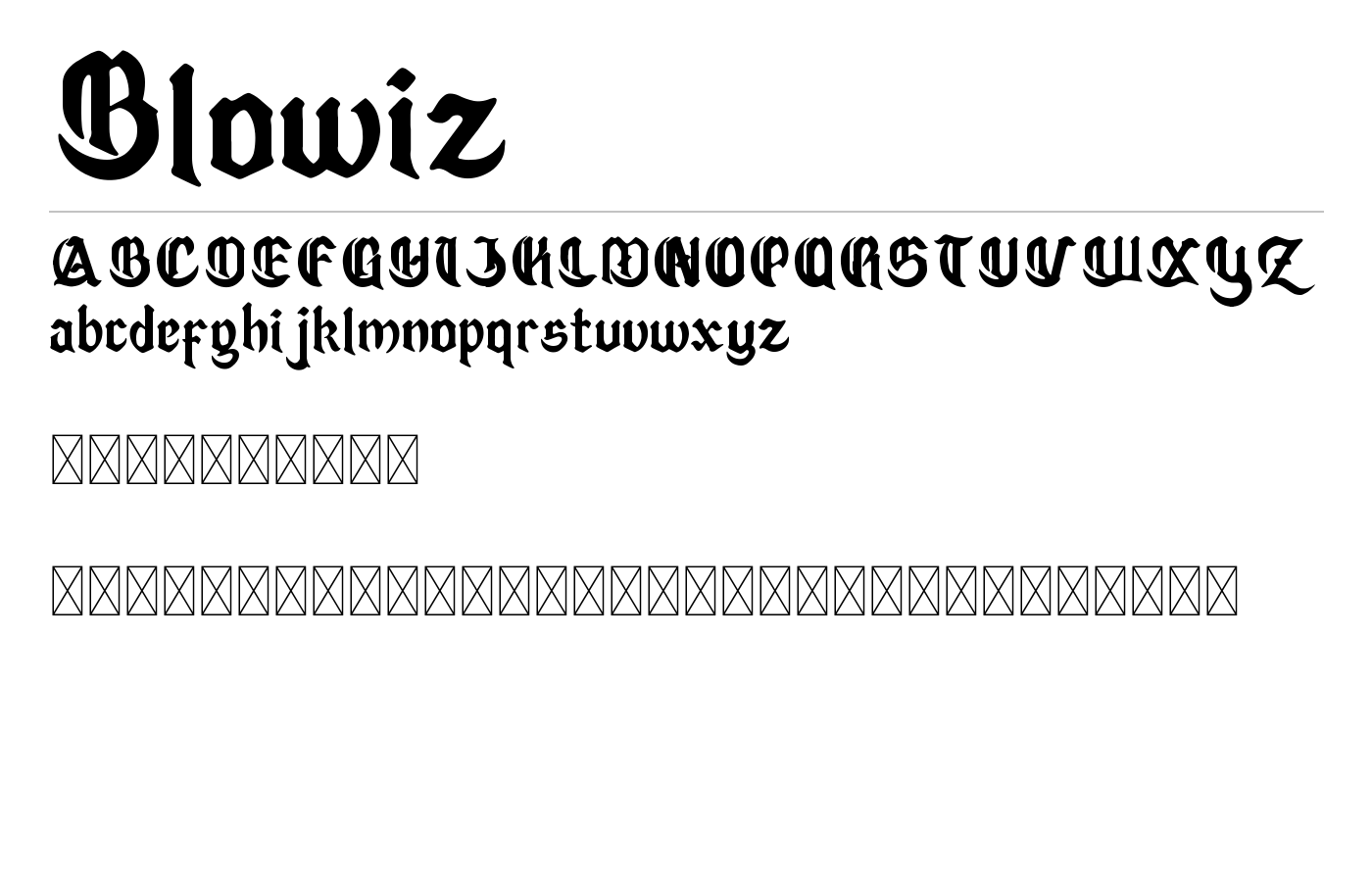
Blowiz is a bold blackletter serif font that features strong, sharp strokes with high contrast and intricate, traditional gothic letterforms. Its ornate uppercase and lowercase characters evoke a historic, medieval feel, making it ideal for designs that seek a dramatic, vintage, and edgy atmosphere, such as logos, posters, or branding with a rebellious or old-world charm.
Blowiz Font